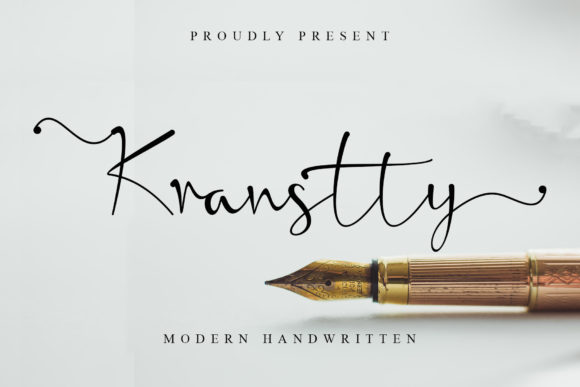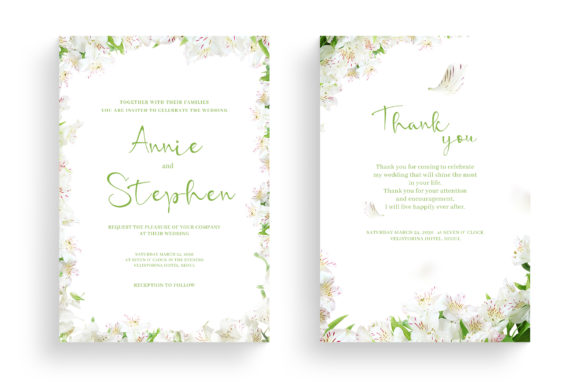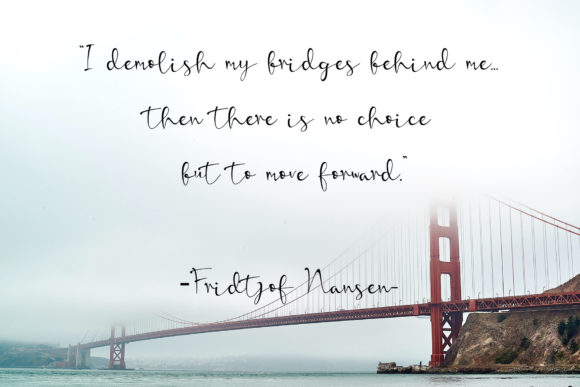
About Kranstty Font
Kranstty is a sweet and cursive handwritten font. This gentle font will look gorgeous on a variety of design ideas. It will add a joyful and romantic touch to each of your projects!